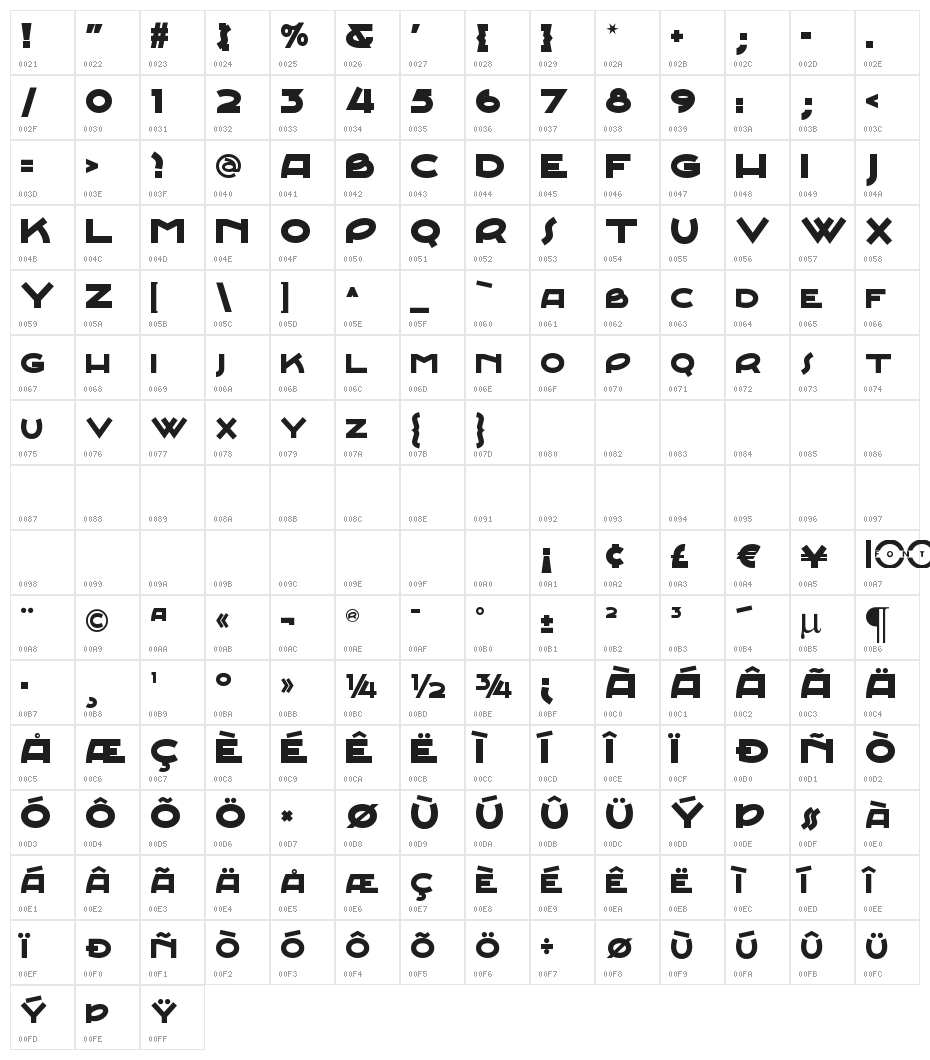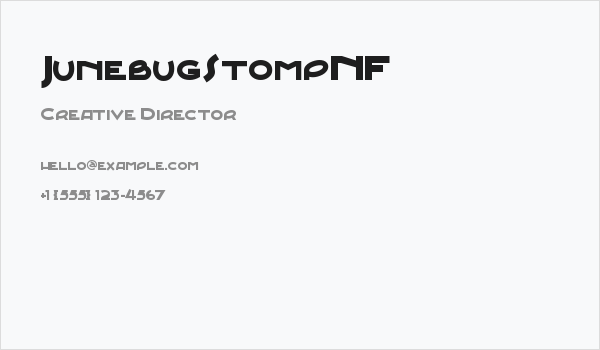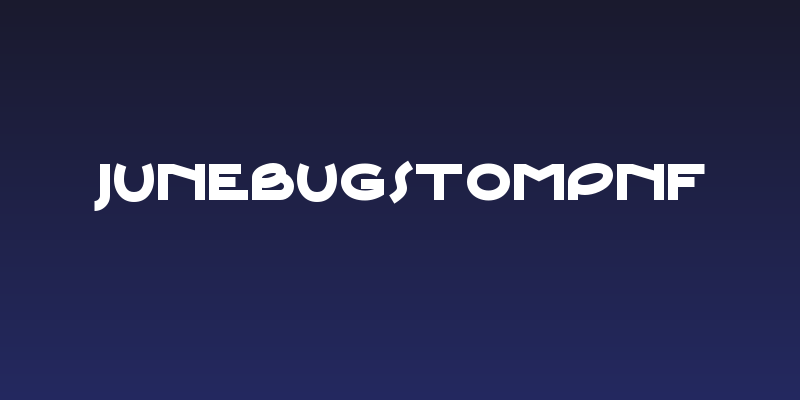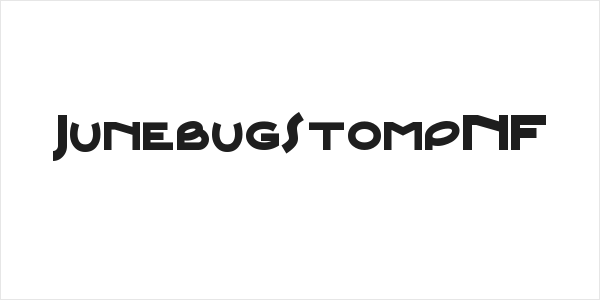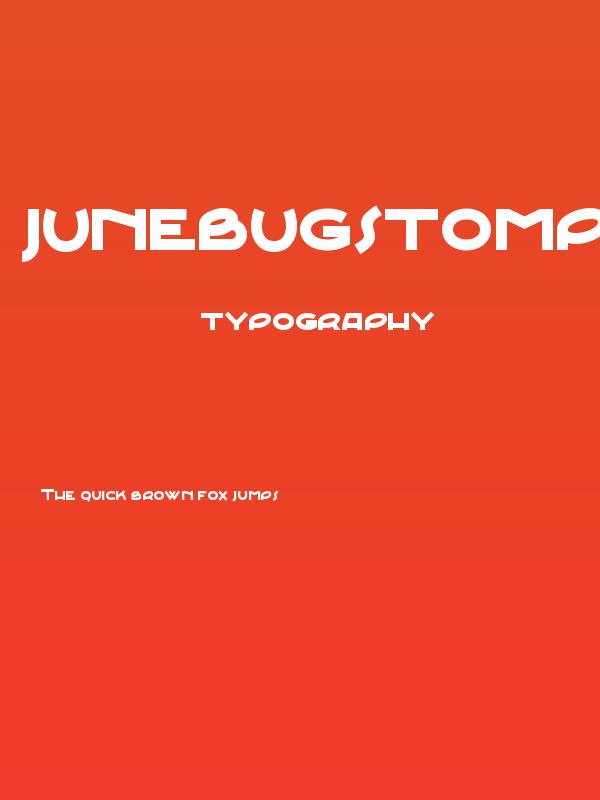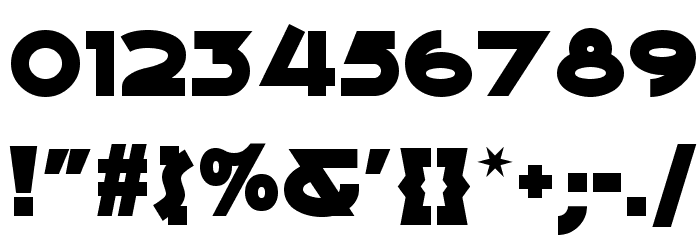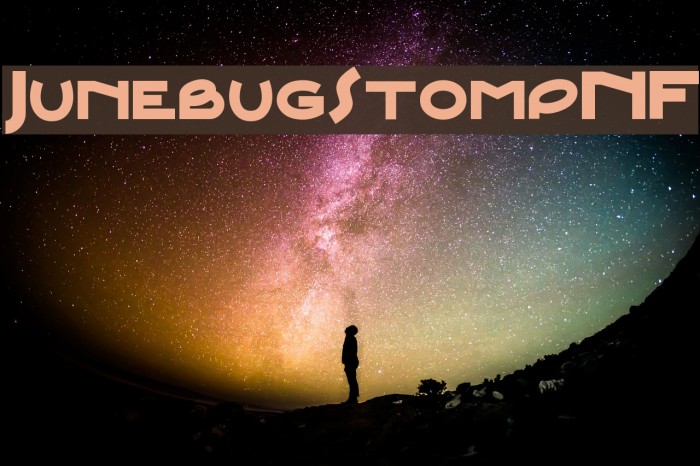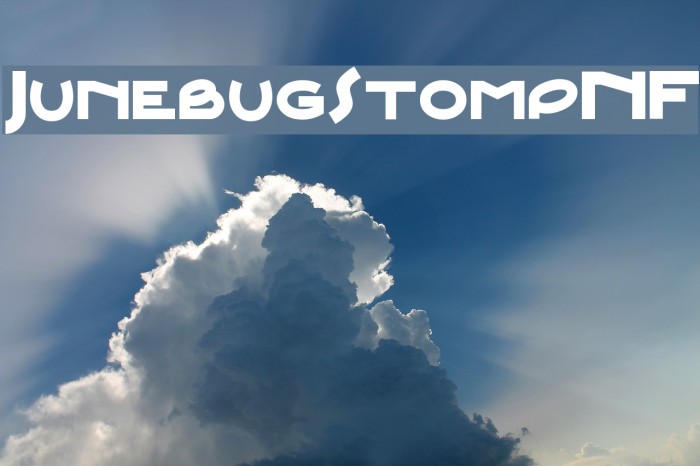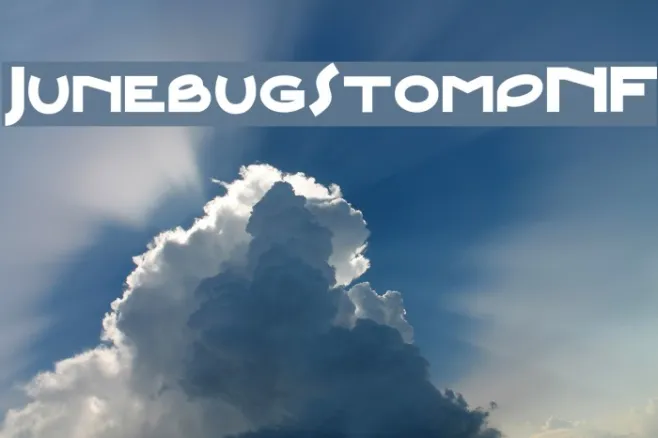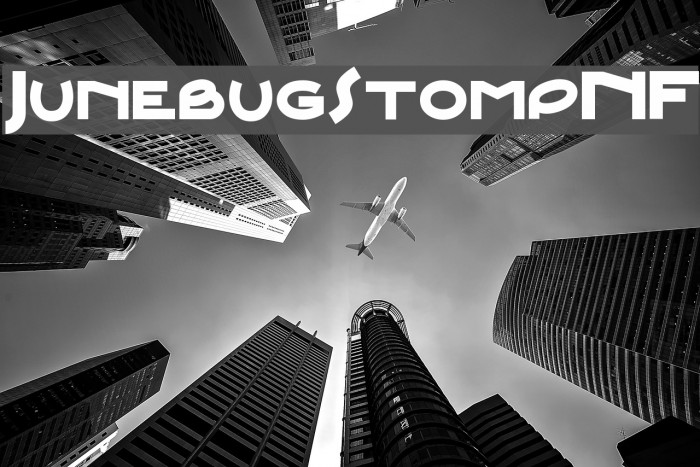
JunebugStompNF Font
JunebugStompNF Description
This font features a bold and dynamic design with a strong geometric influence. The characters are crafted with sharp angles and a distinct block-like appearance, giving it a modern and edgy feel. The uppercase and lowercase letters maintain a consistent style, with unique cuts and curves that add a sense of movement and energy. The numbers and special characters follow the same design principles, ensuring a cohesive look across all elements. This font is perfect for making a bold statement and capturing attention.